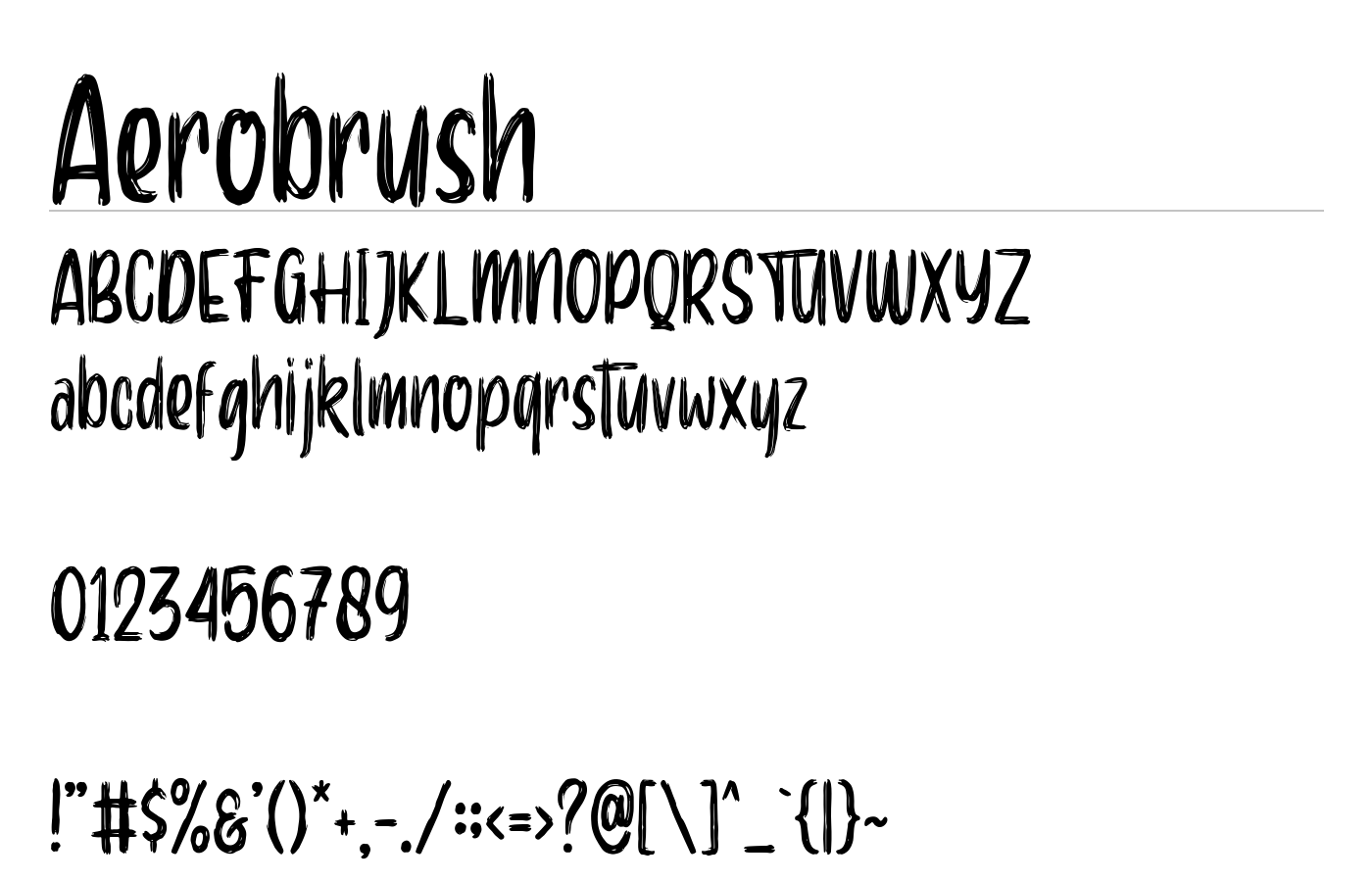
Aerobrush is a playful, handwritten sans serif font with a brushstroke texture that gives it an informal and energetic feel. Its tall, narrow letterforms combined with rough, uneven edges create a casual, creative vibe suited for artistic projects, youth-oriented branding, and eye-catching headlines. This font works best in designs that aim to convey personality and spontaneity rather than formality or precision.
Aerobrush Font
About Aerobrush Font
| Font family | Aerobrush Font |
| Designer | Good Java Studio |